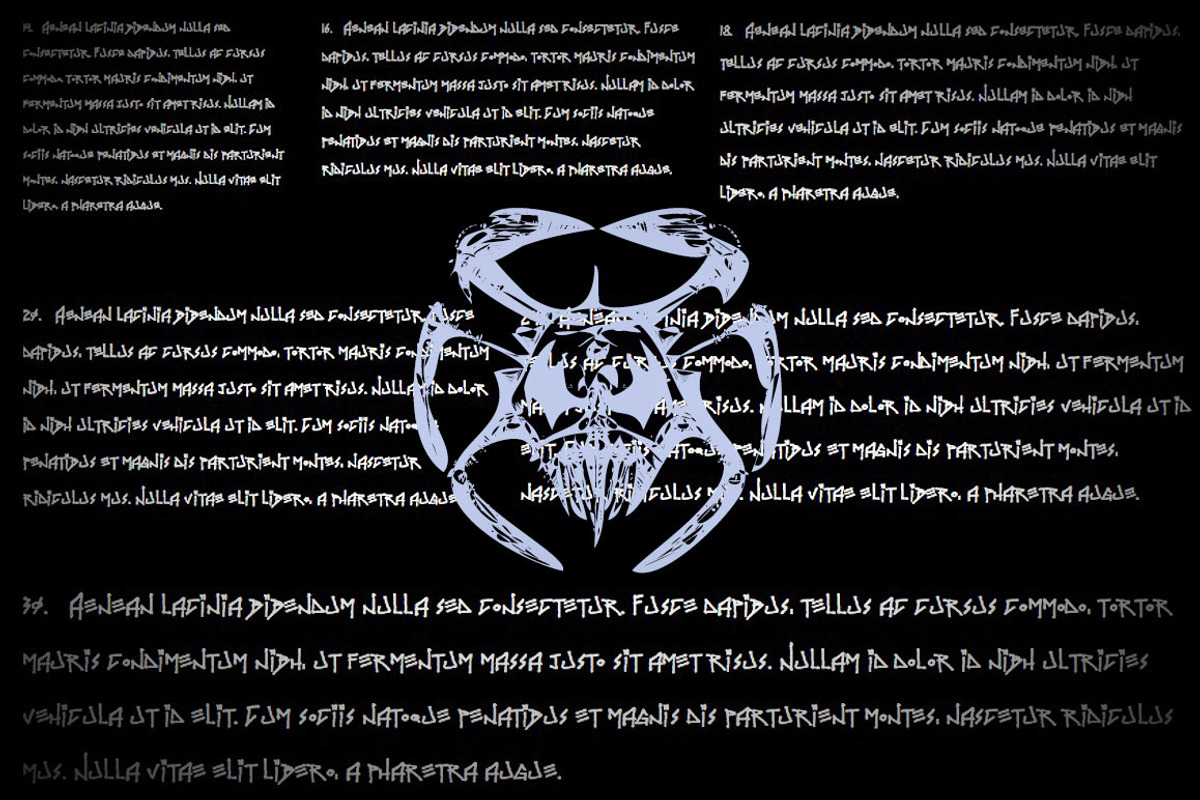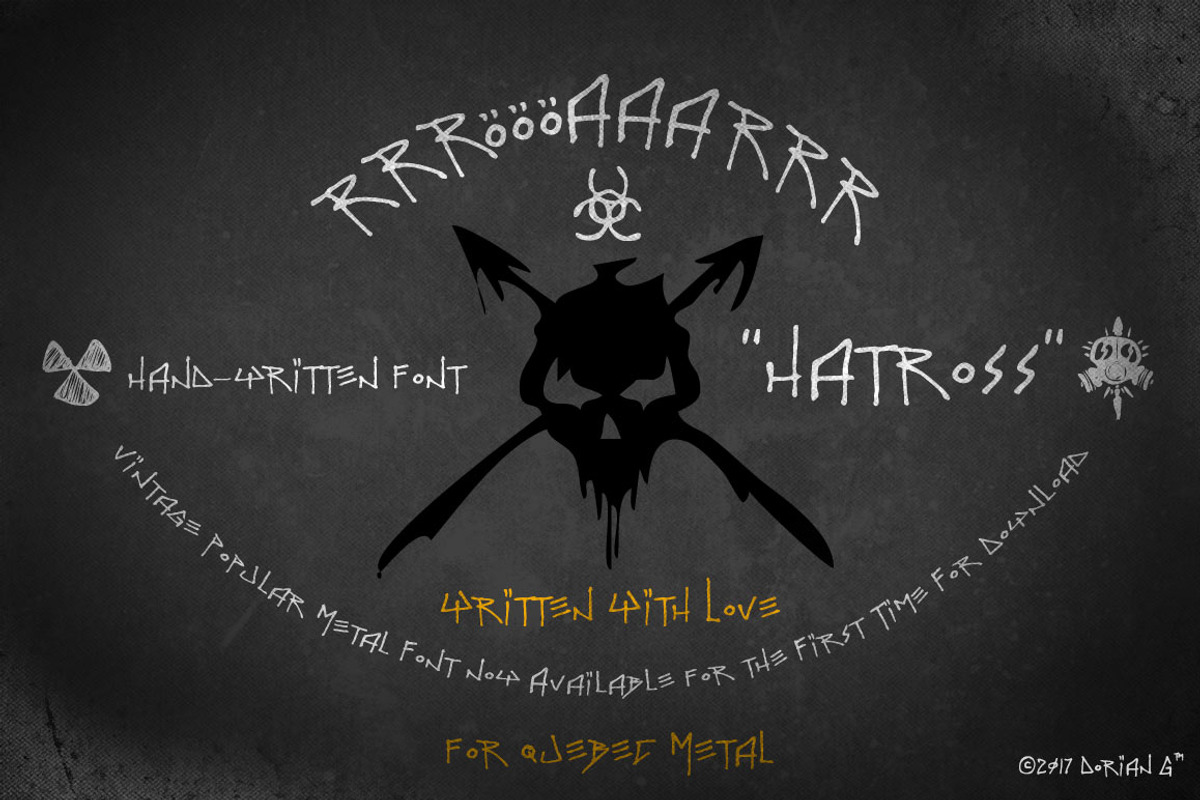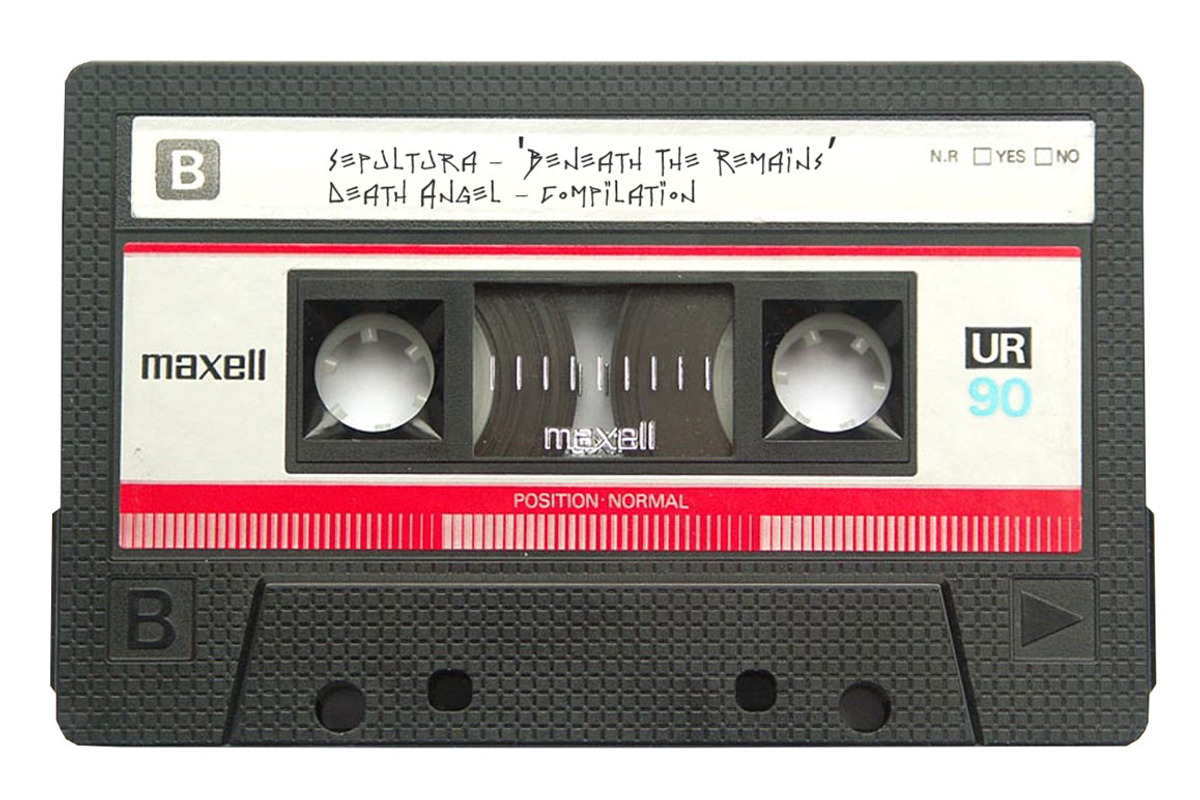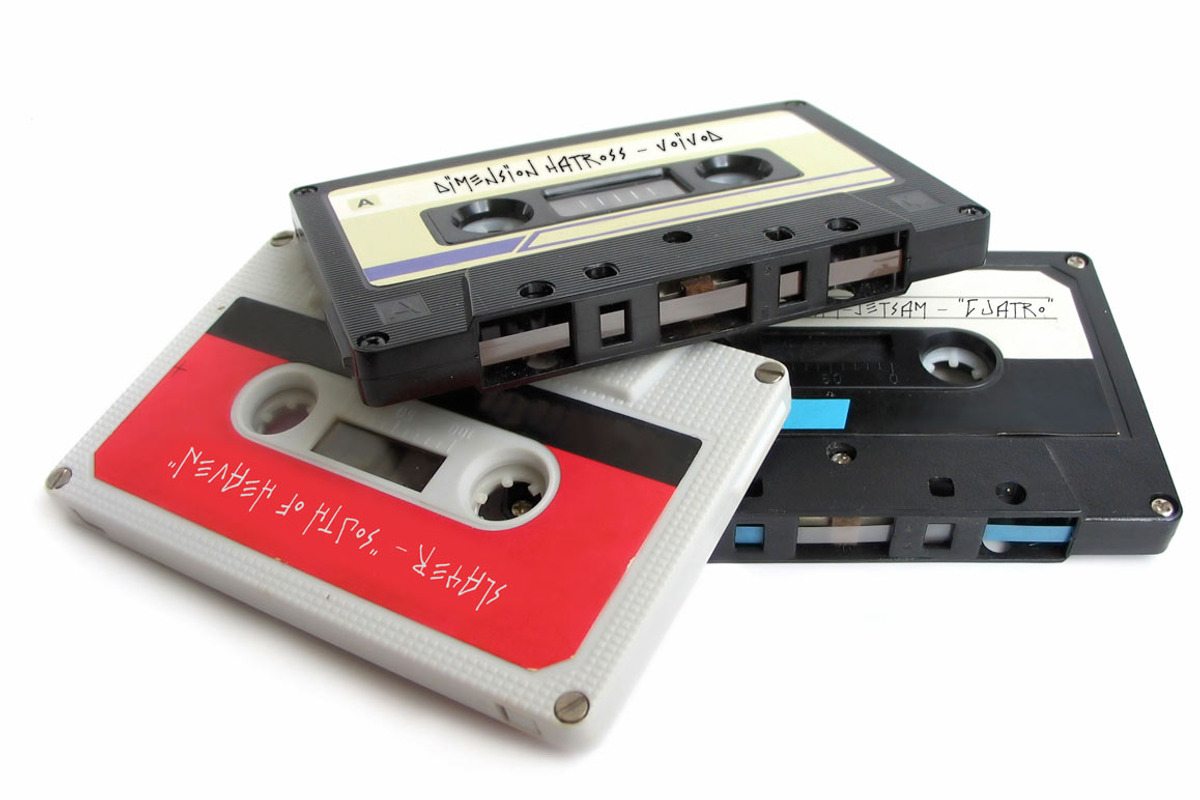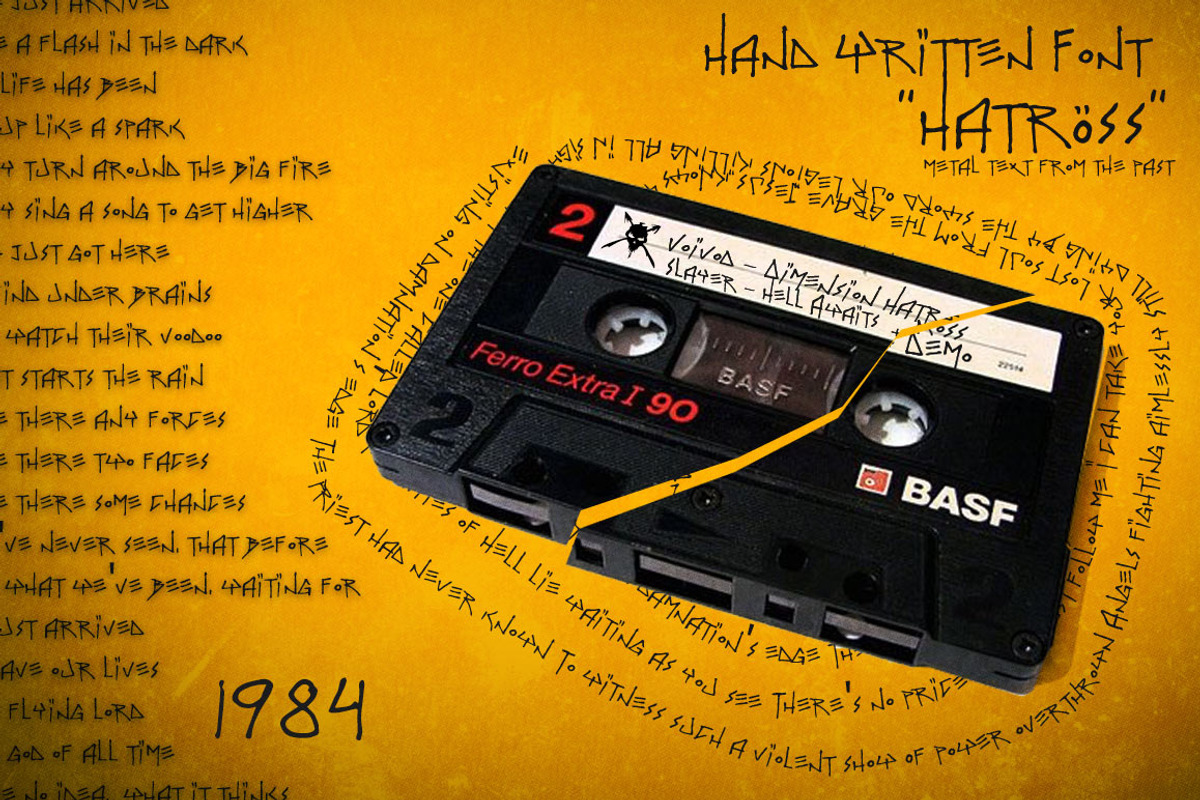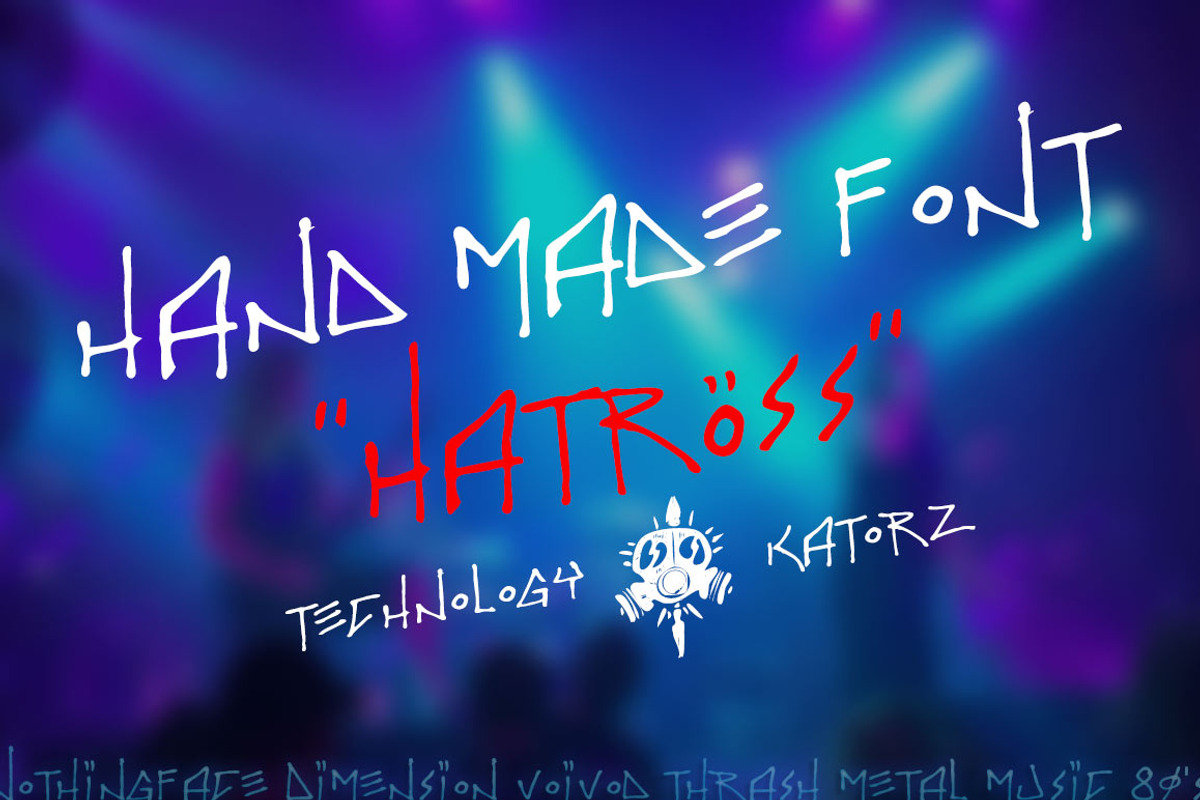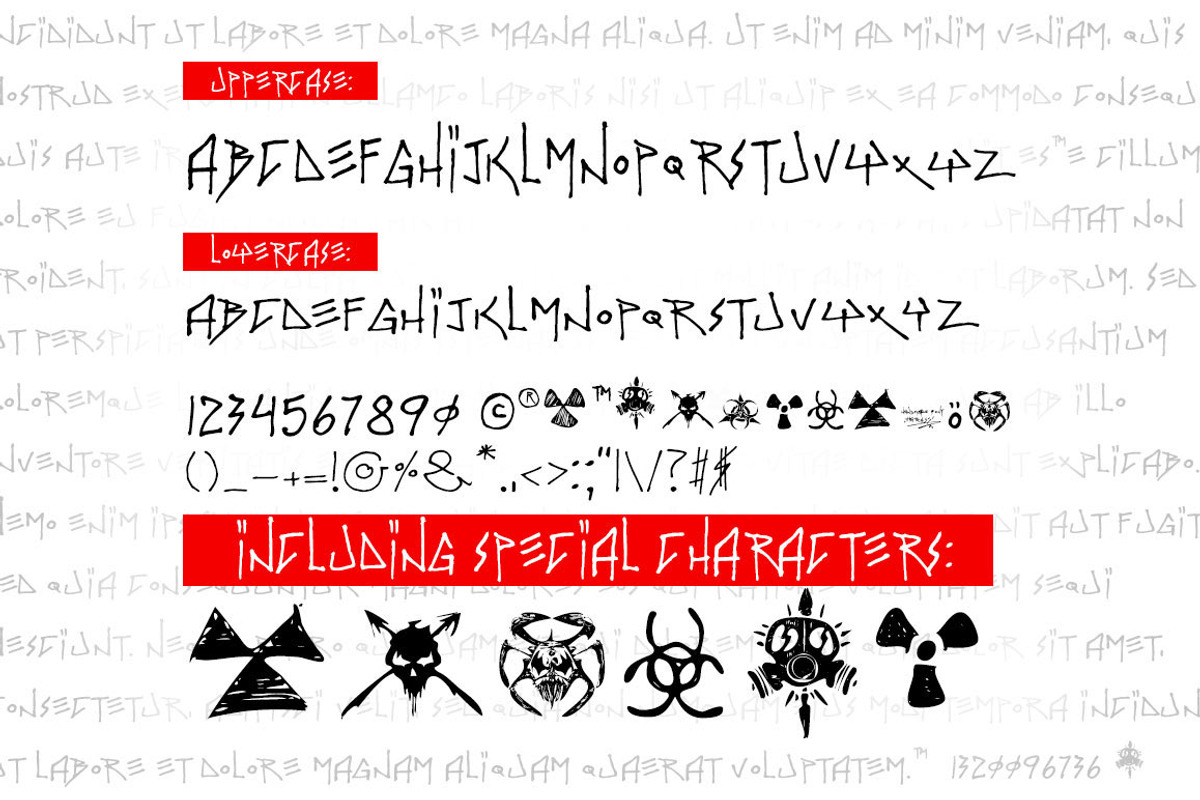
Hand Made Font ‘Hatross’
Hand Made Font ‘Hatross’ by the little wonder shop is a font selected for branding, posters, packaging, typography.
Why Hand Made Font ‘Hatross’ is worth a look
Hand Made Font ‘Hatross’ by the little wonder shop fits naturally into Branding, posters, packaging, typography.